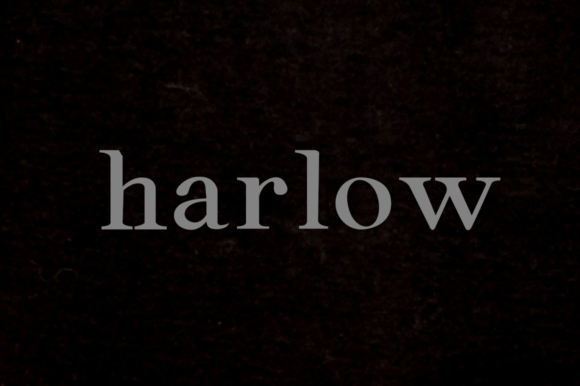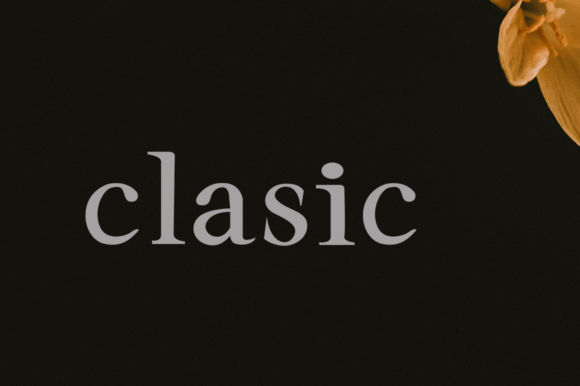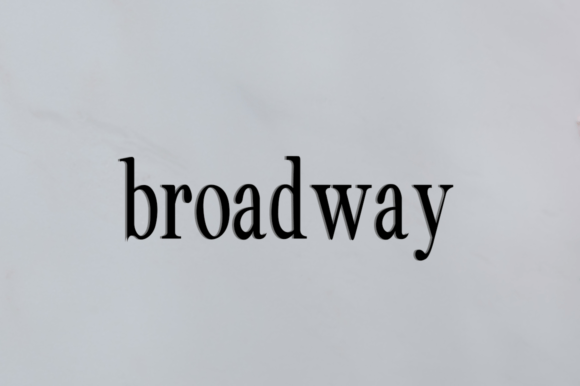
Harlow Font: Elegant Serif Typography for Luxurious Branding
About the Harlow Font
We are excited to introduce Harlow Font, a must-have typeface for any serious designer. Harlow is a classy and modern serif font that has a unique style and neat look. This typeface is perfect for elegant and luxurious logos, book or movie title designs, fashion brands, magazines, clothing, fonts, quotes, and more. Use it to add a unique style to any of your design projects!
Harlow’s elegant serif forms excel in headlines, branding applications requiring a touch of sophistication, and short-form text such as quotes or product descriptions. Its refined aesthetic makes it suitable for packaging design, particularly for luxury goods or high-end products. However, its refined stroke weight and letter spacing make it less ideal for body text or UI elements where legibility over long passages is paramount.
Pairing Harlow effectively requires considering its inherent elegance. A clean sans-serif like Montserrat or Lato provides a strong contrast and enhances readability when used for supporting text. For a more luxurious feel, consider pairing it with a delicate script font like Great Vibes for a subtle touch of femininity. Alternatively, a geometric sans-serif offers a contemporary balance.
Harlow projects a sophisticated and modern personality. It’s best suited for brands aiming to communicate luxury, quality, and timeless style. Its inherent elegance lends itself to projects within the fashion, beauty, and high-end consumer goods sectors.